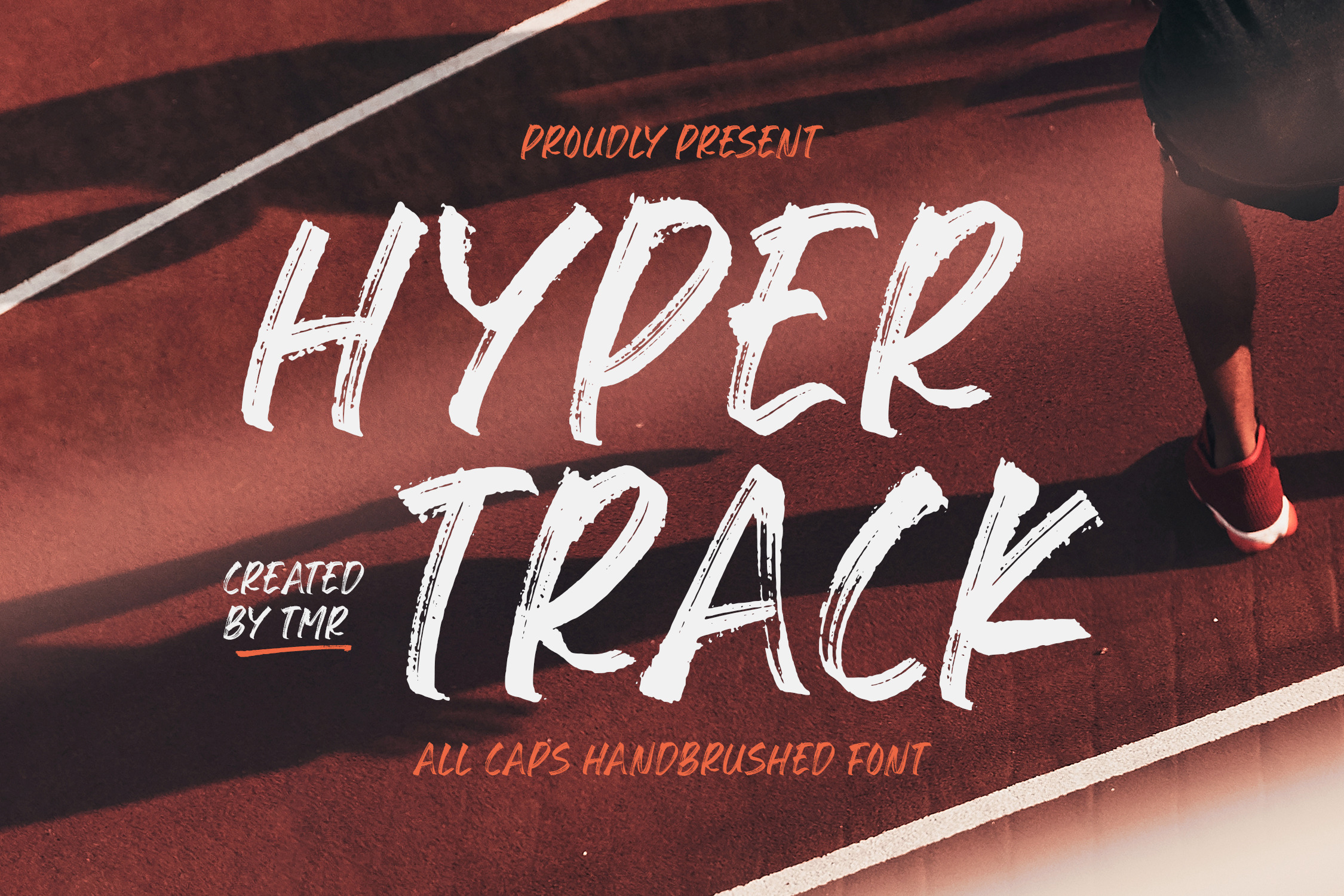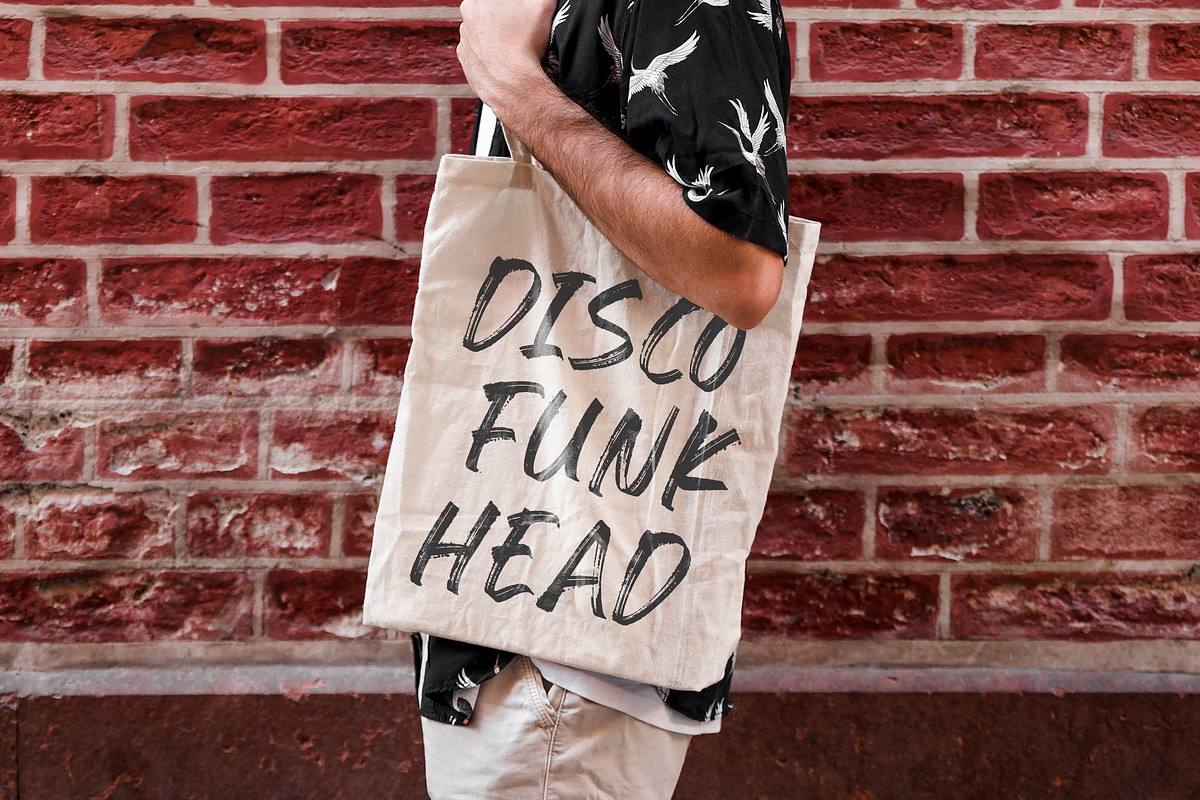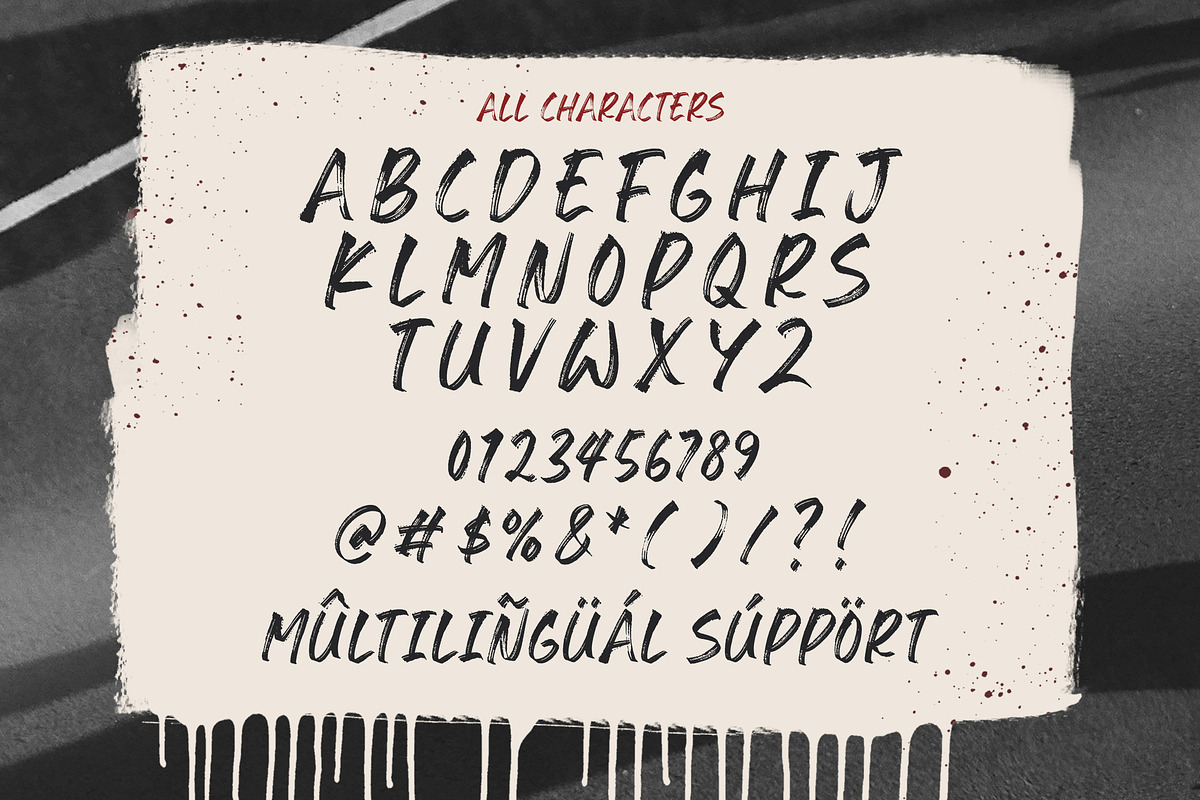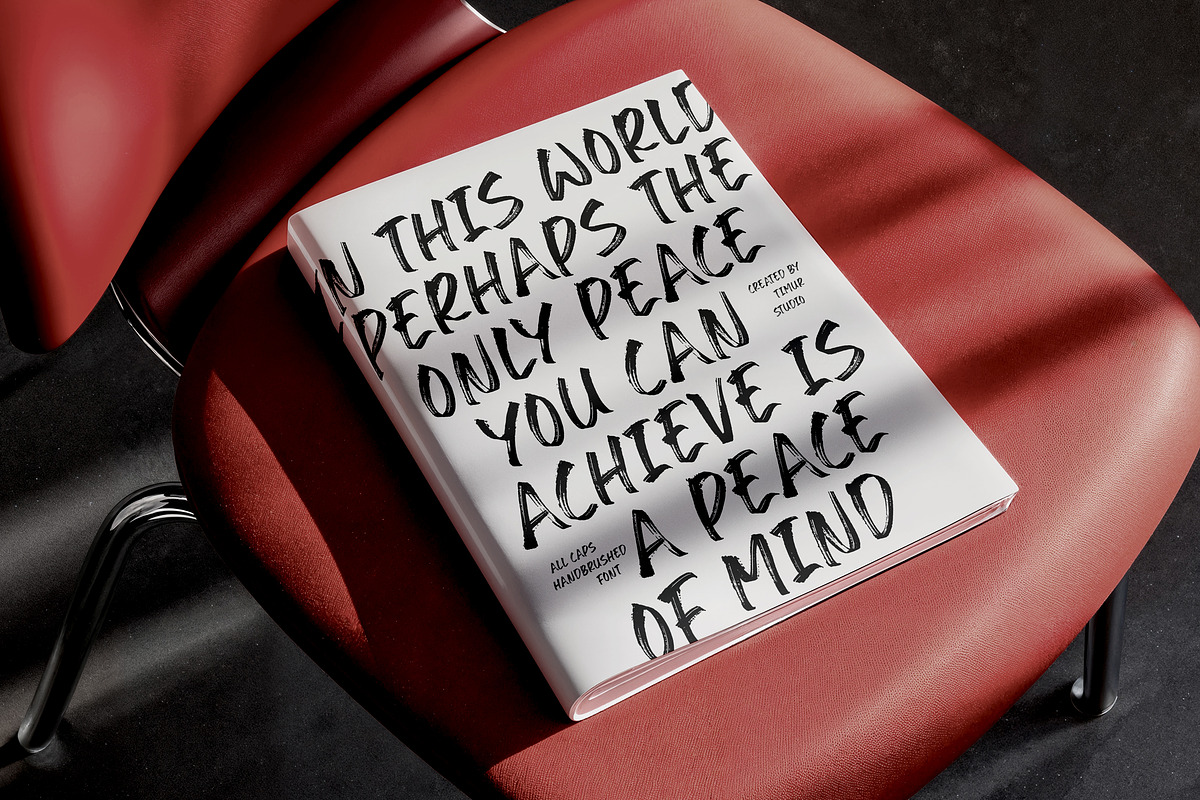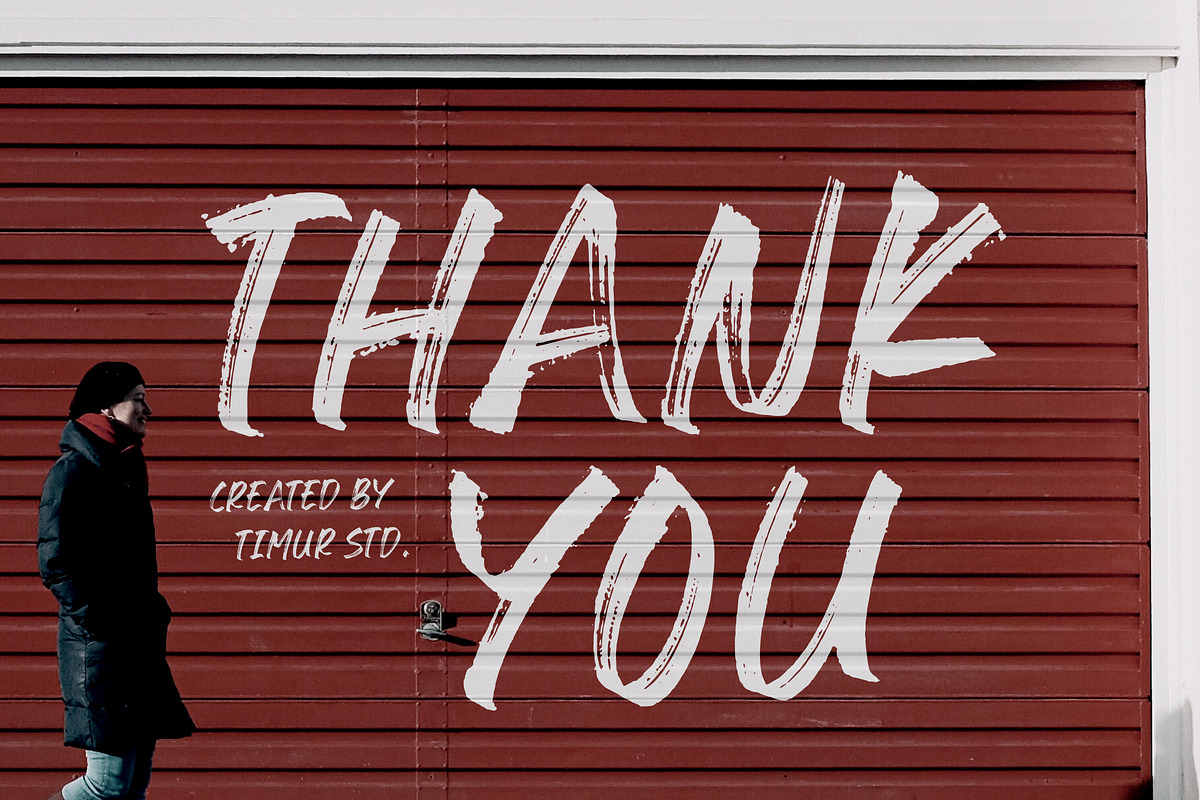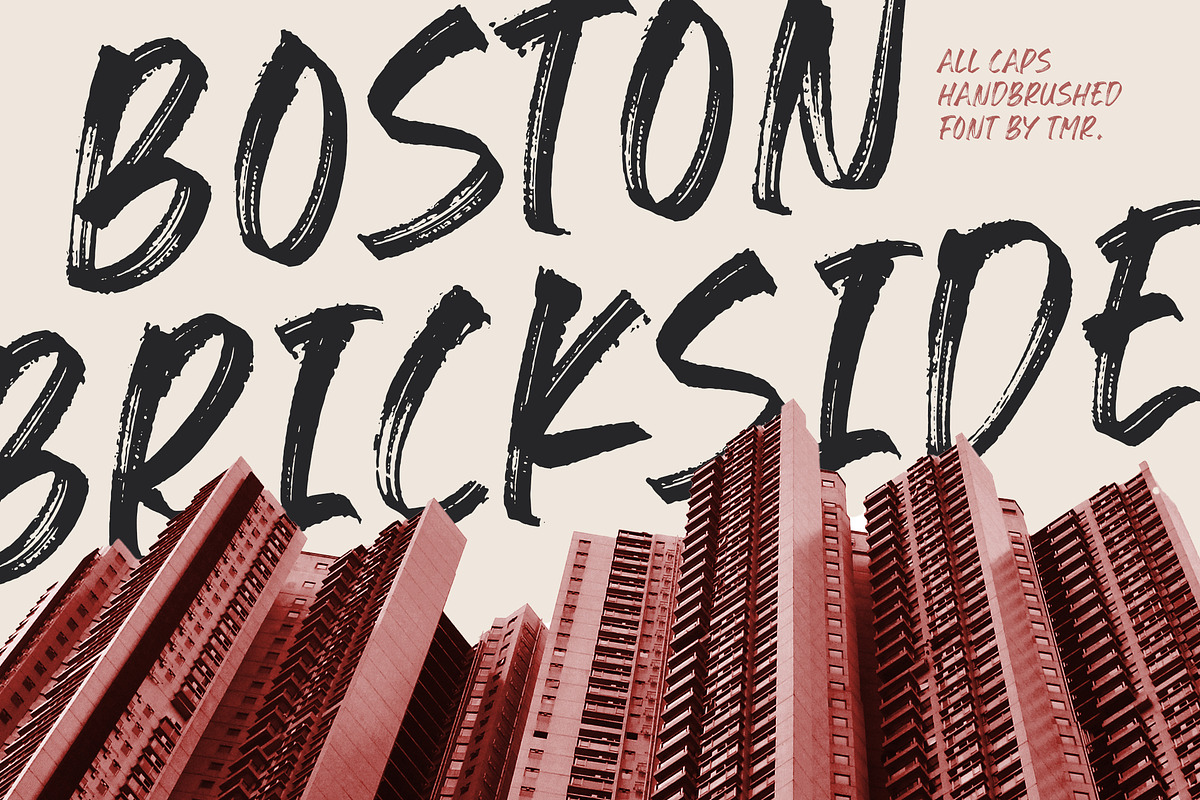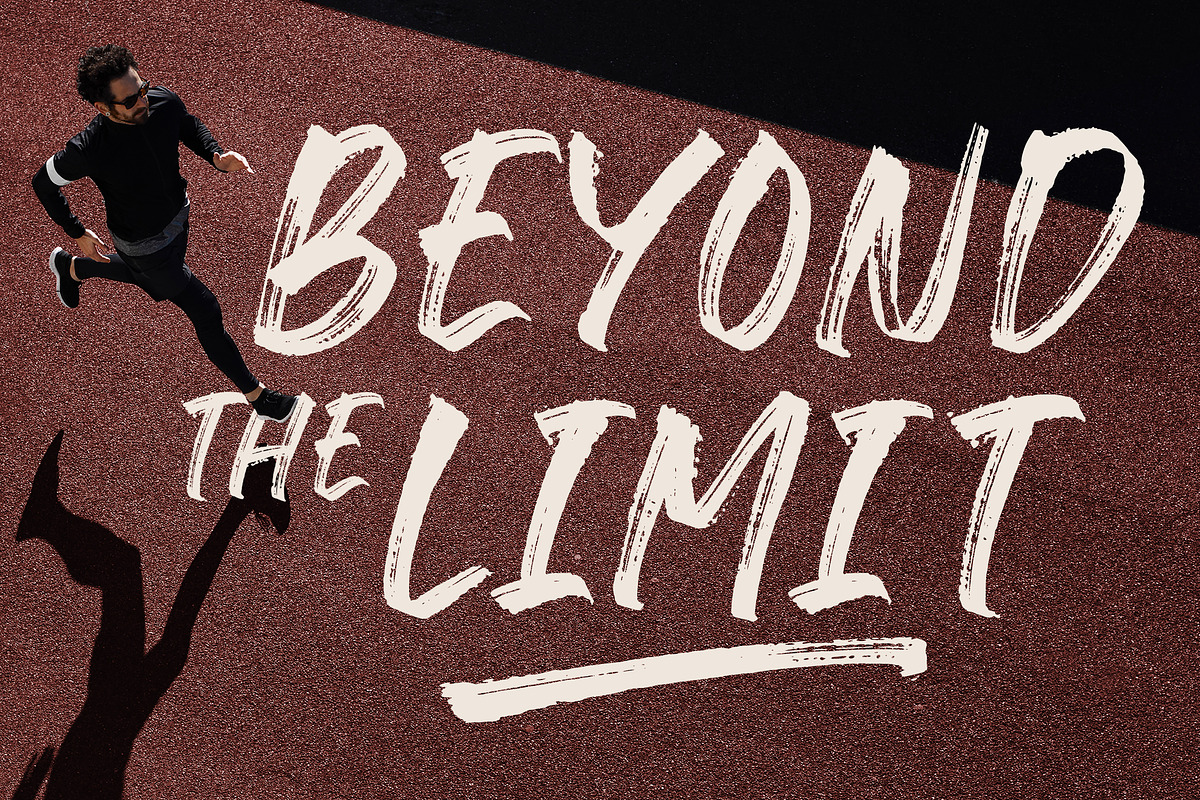
Hyper Track Font
Introduced by Timurtype Studio!
Hyper Track is a All Caps Handbrushed Font
Hyper Track is a bold, all-uppercase hand-brushed font that exudes kinetic energy and motion. Each letter feels like it was painted with a single, swift stroke, giving the typeface a rough, organic texture that’s perfect for dynamic branding, sports graphics, posters, or anything needing a powerful, raw typographic voice.
Hyper Track Font also supports multilingualism